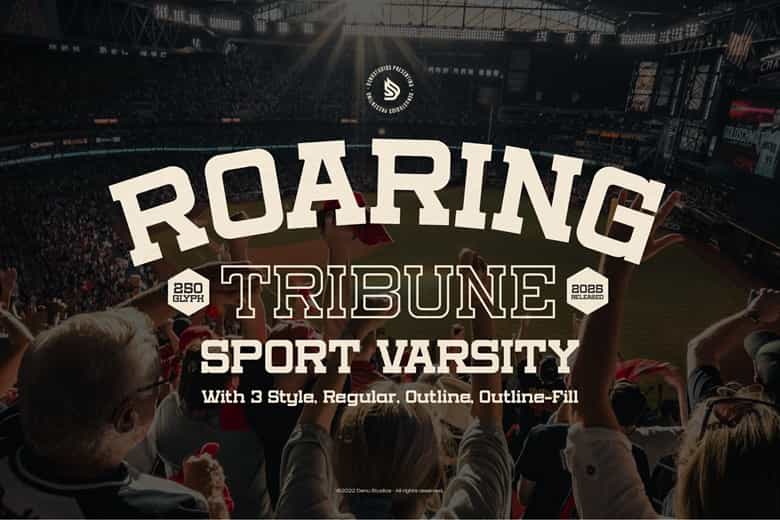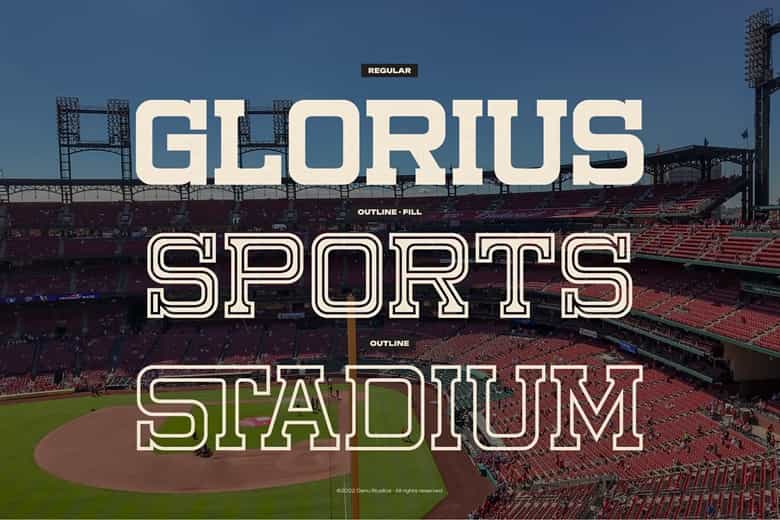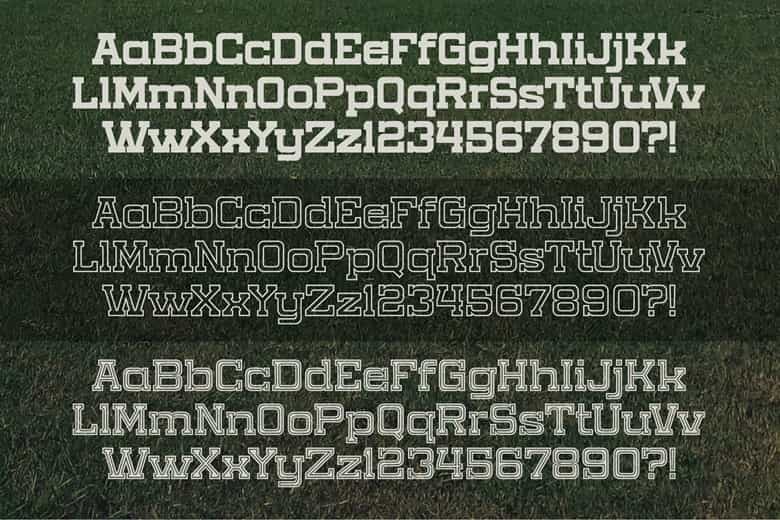
Roaring Tribune is new sport varsity slab serif font. It’s suitable for any projects such as: branding projects, homeware designs, product packaging, logo, quotes, posters, shopping bags, t-shirts, book covers, name card, invitation cards, greeting cards, label, photography, special events, and all your other lovely projects.